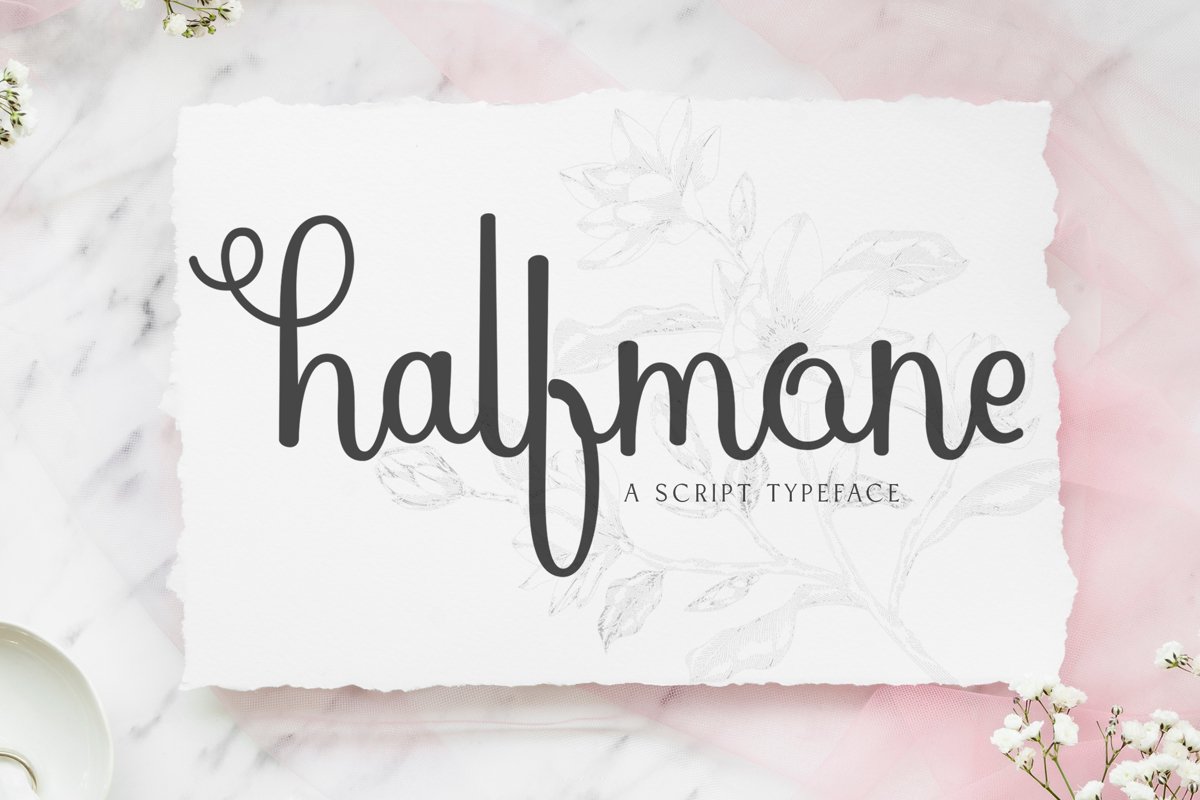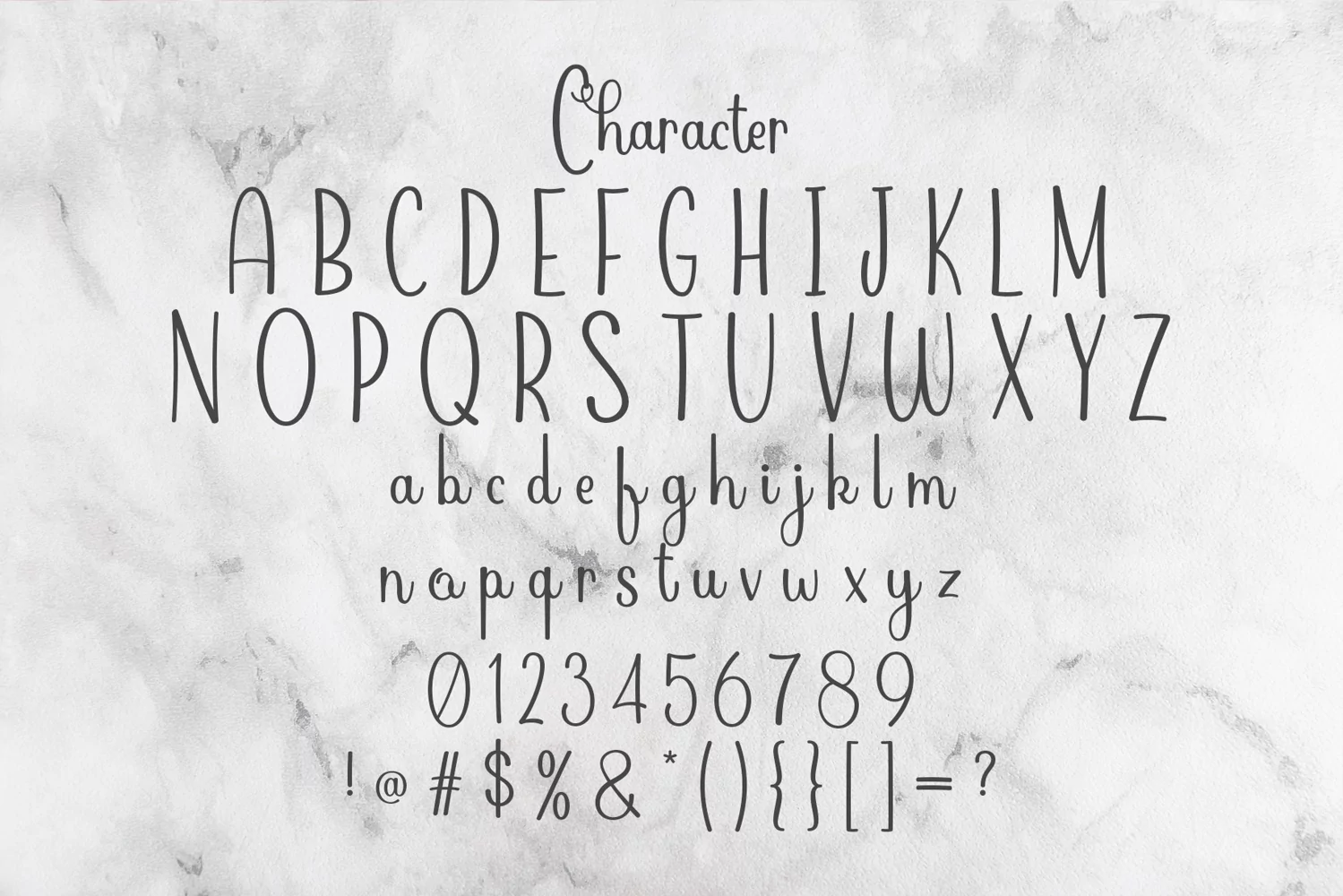
Halfmone is a fancy script typeface. Perfect for display, quotes, mockup, logo, logotype, poster, hand craft, crafting needs, business card, invitation, print, t-shirt, pin, mug and many more.